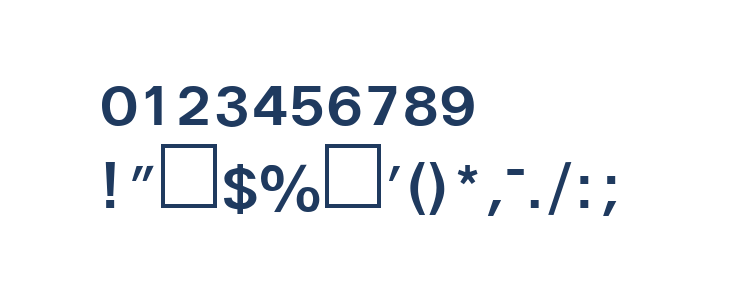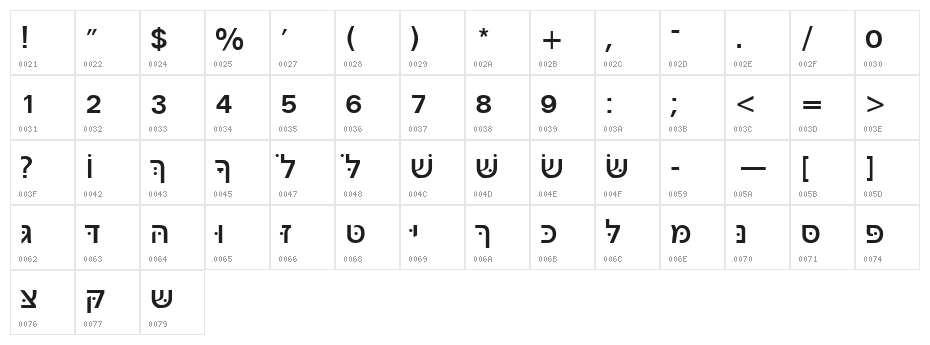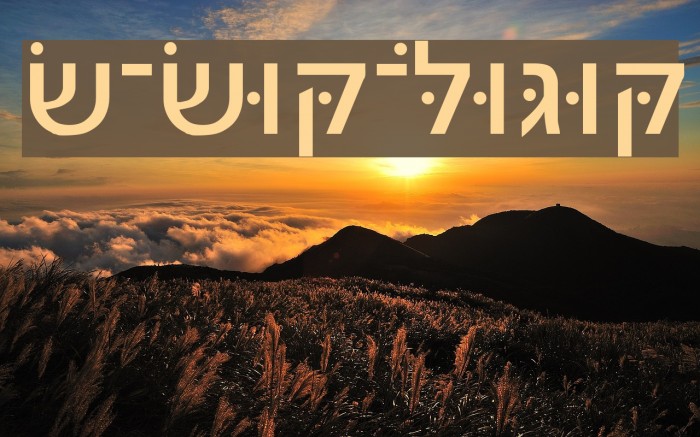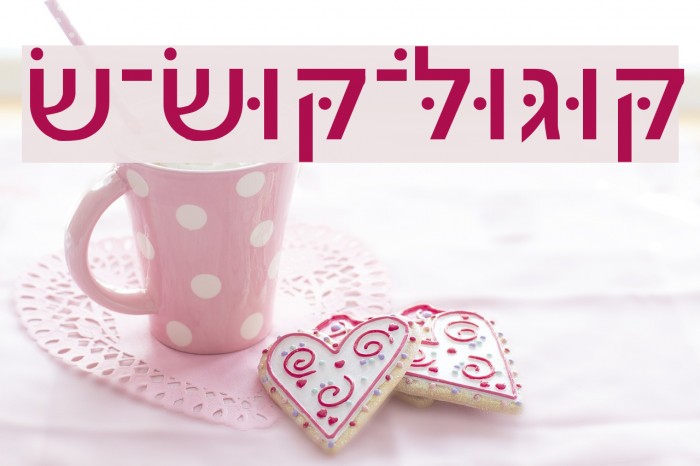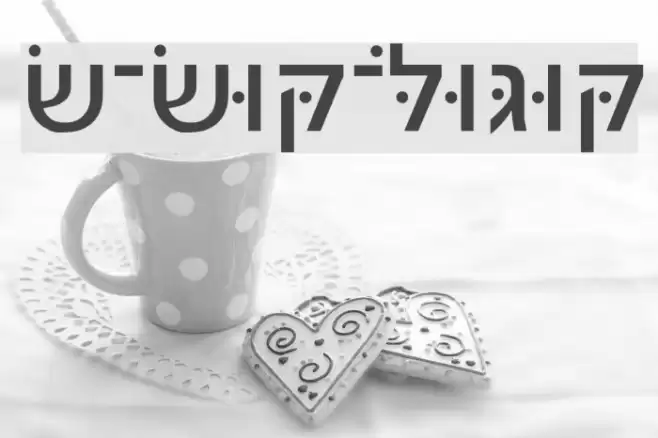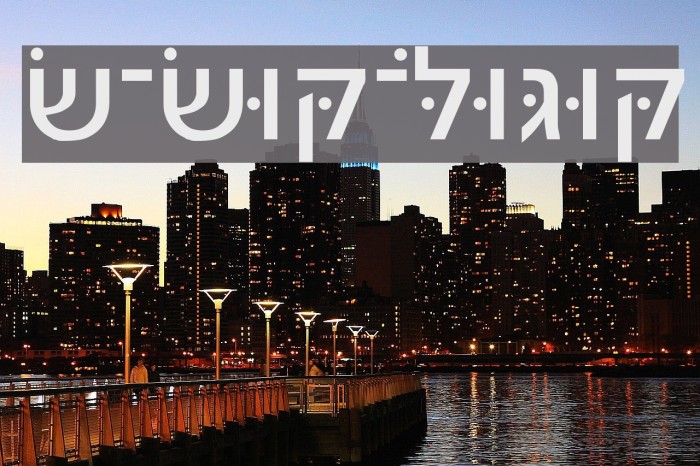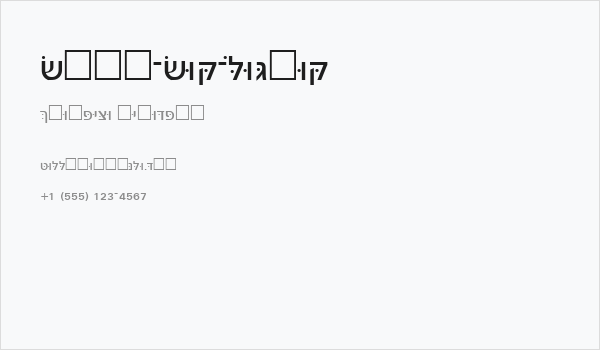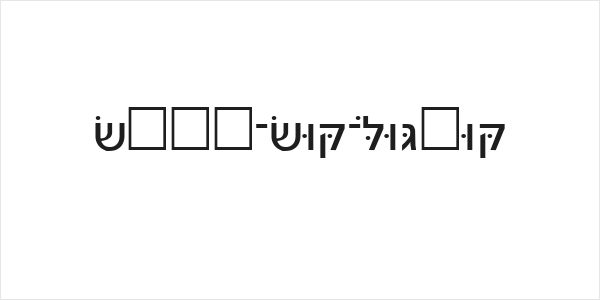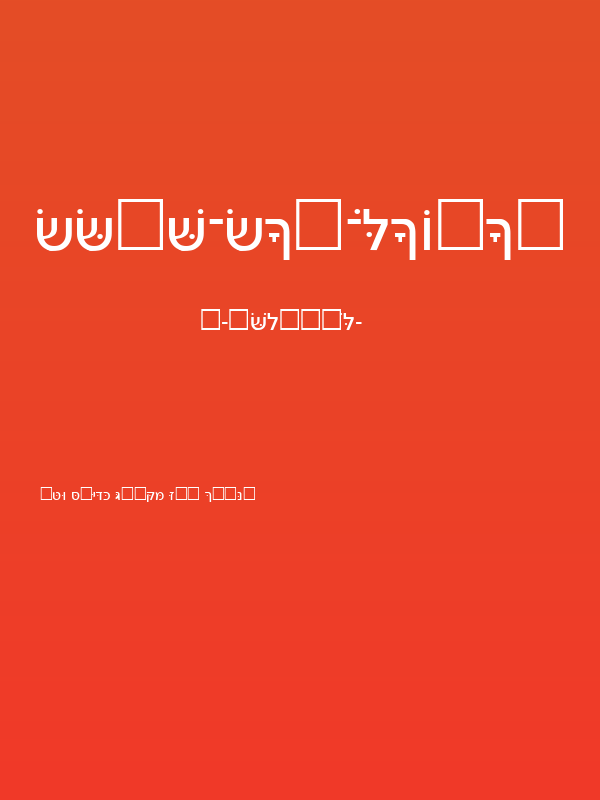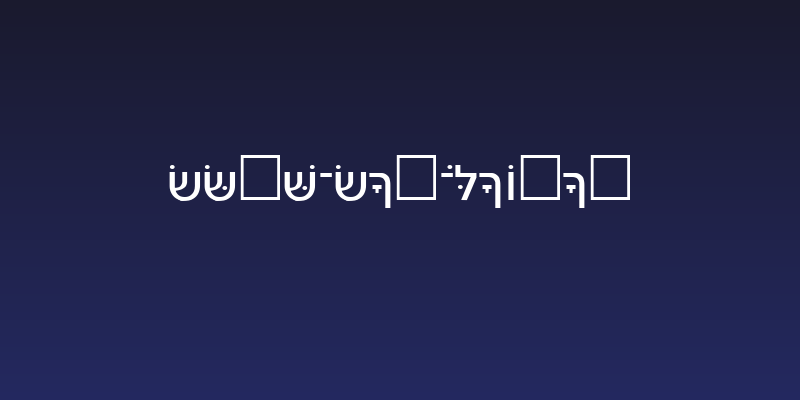
Noam-New-Hebrew Font
Noam-New-Hebrew Description
This font features a clean and modern design with a focus on readability and clarity. The characters are well-defined with a balanced weight, making it suitable for both digital and print media. The numerals are distinct and easy to read, while the special characters maintain a consistent style with the rest of the font. The overall appearance is sleek and professional, making it versatile for various applications.